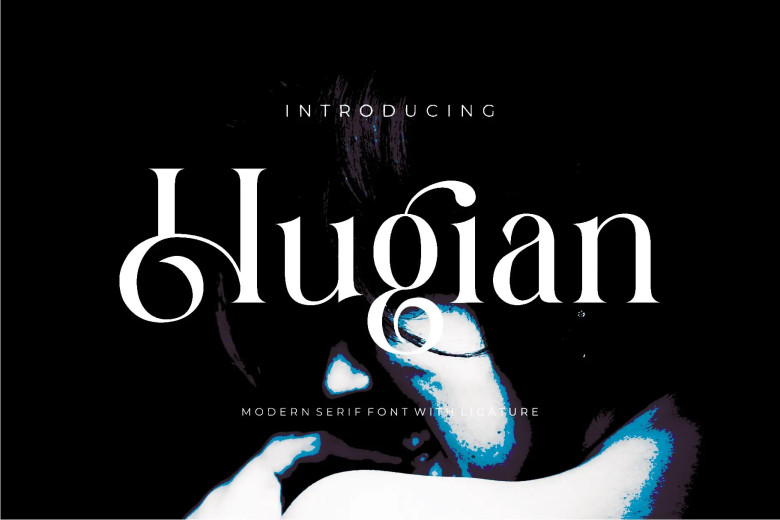
Hugian Font
Hugian is a serif font derived from minim’s iconic logo, is ideal for creating templates, brochures and videos. Additionally, this versatile font can also be used for logo creation as well as invitations, layouts and elegant crafting projects.
Hugian Elegant Serif Font